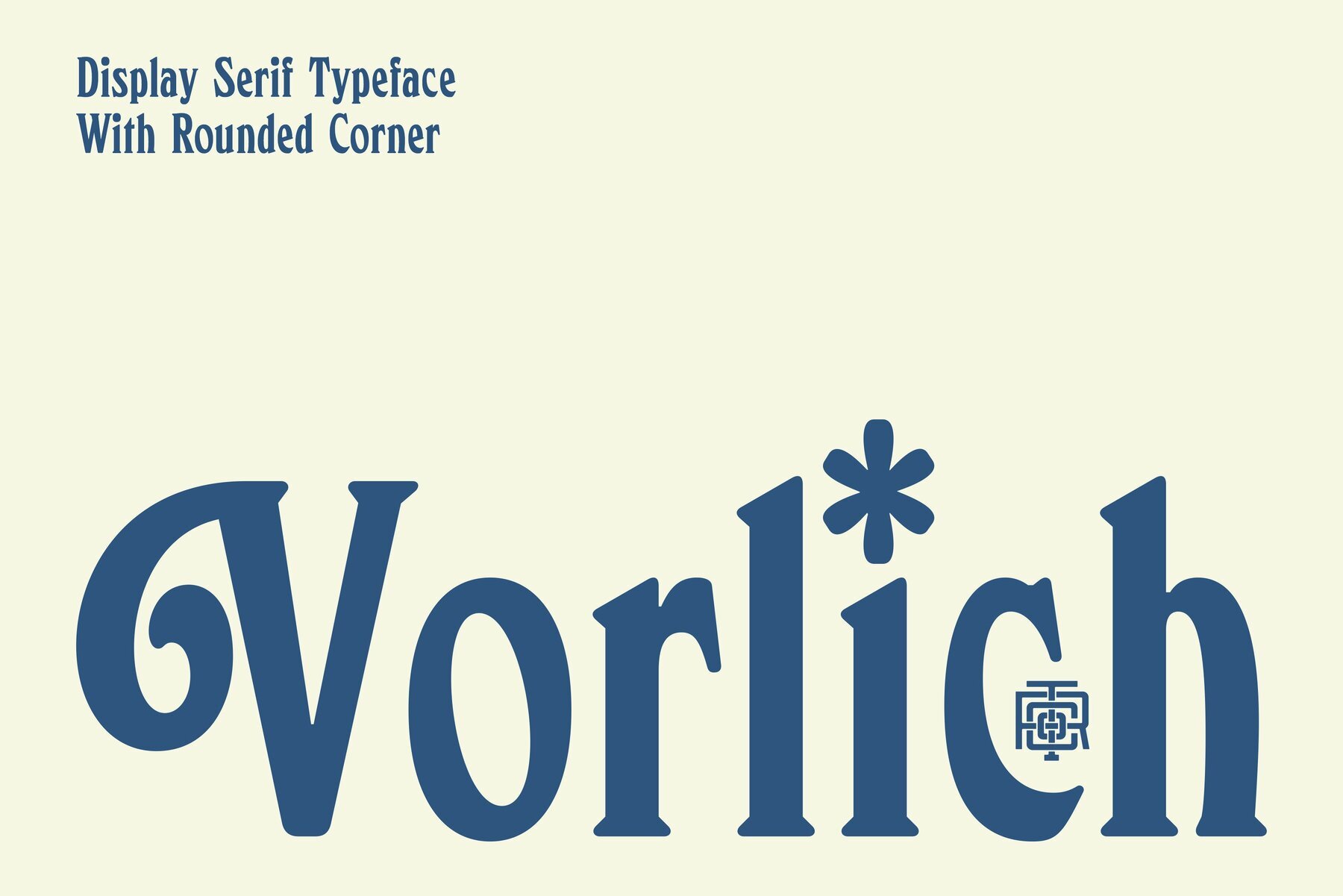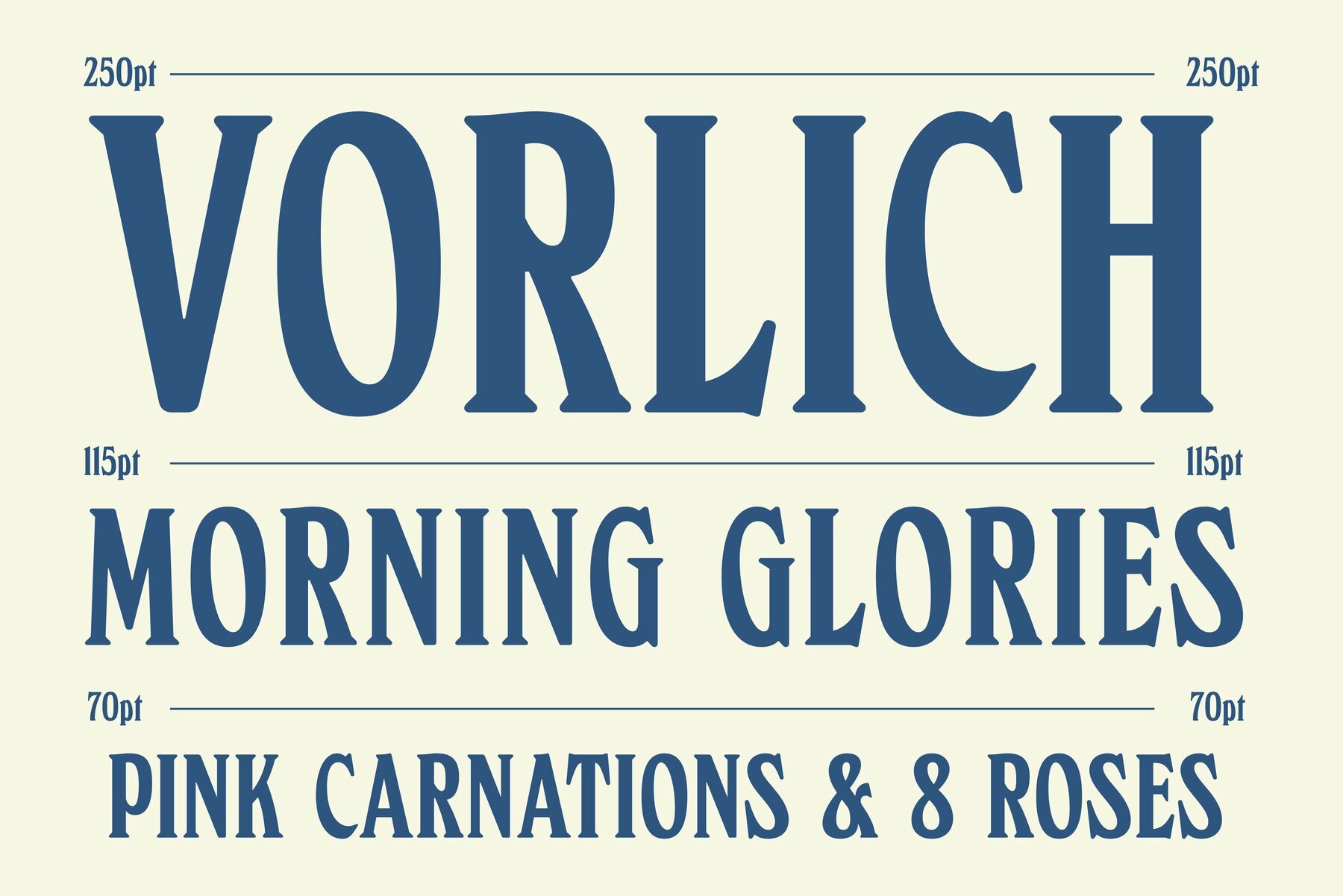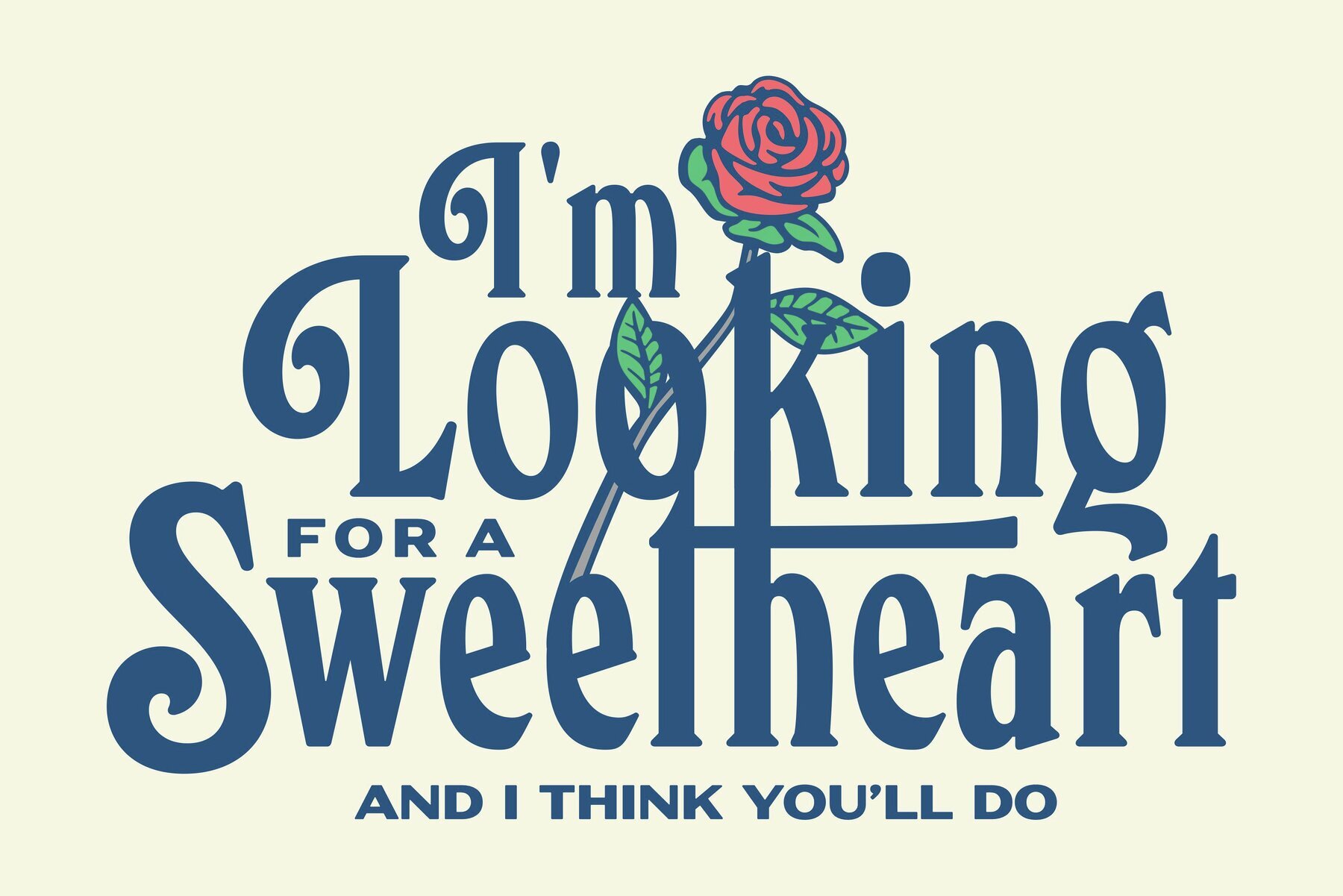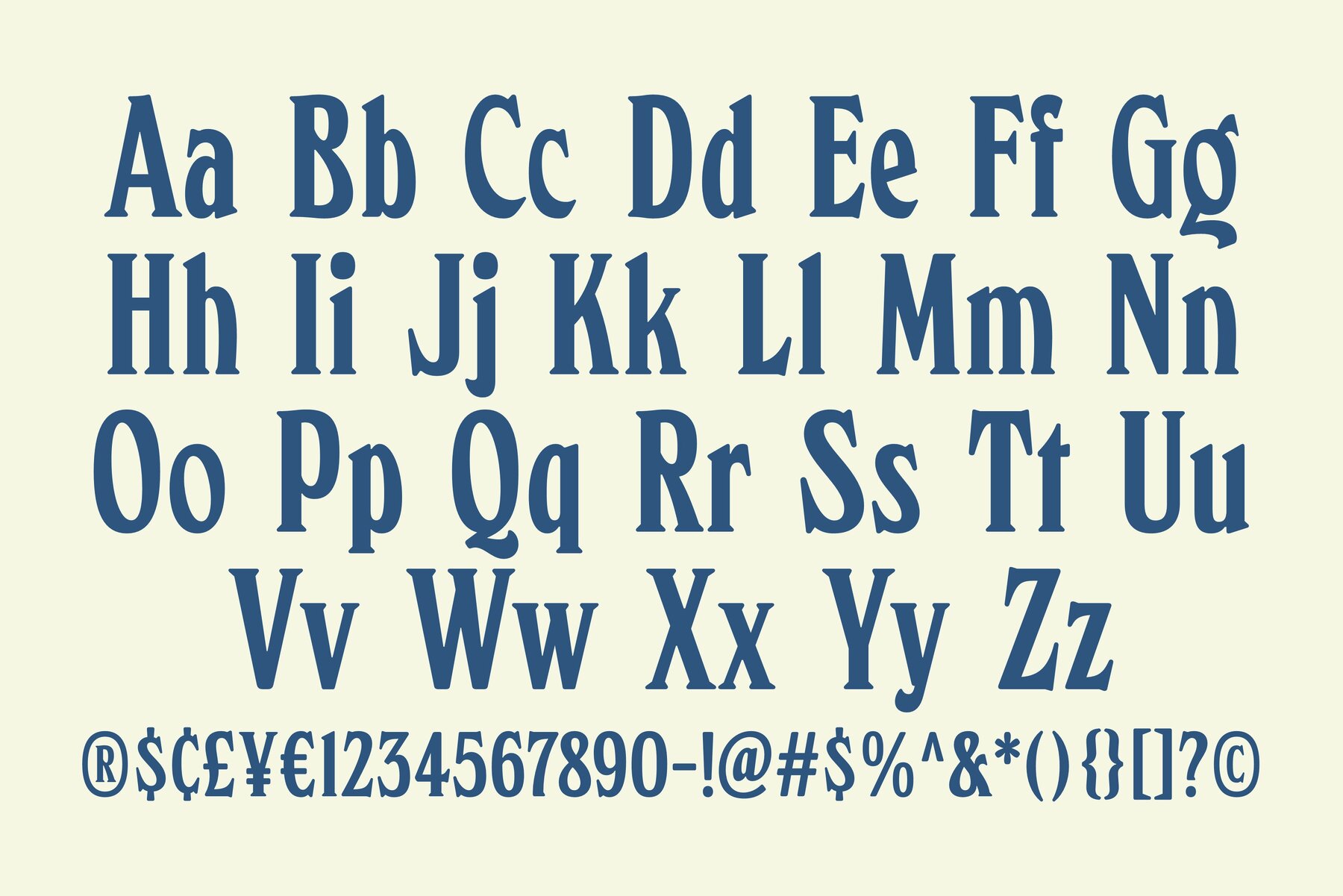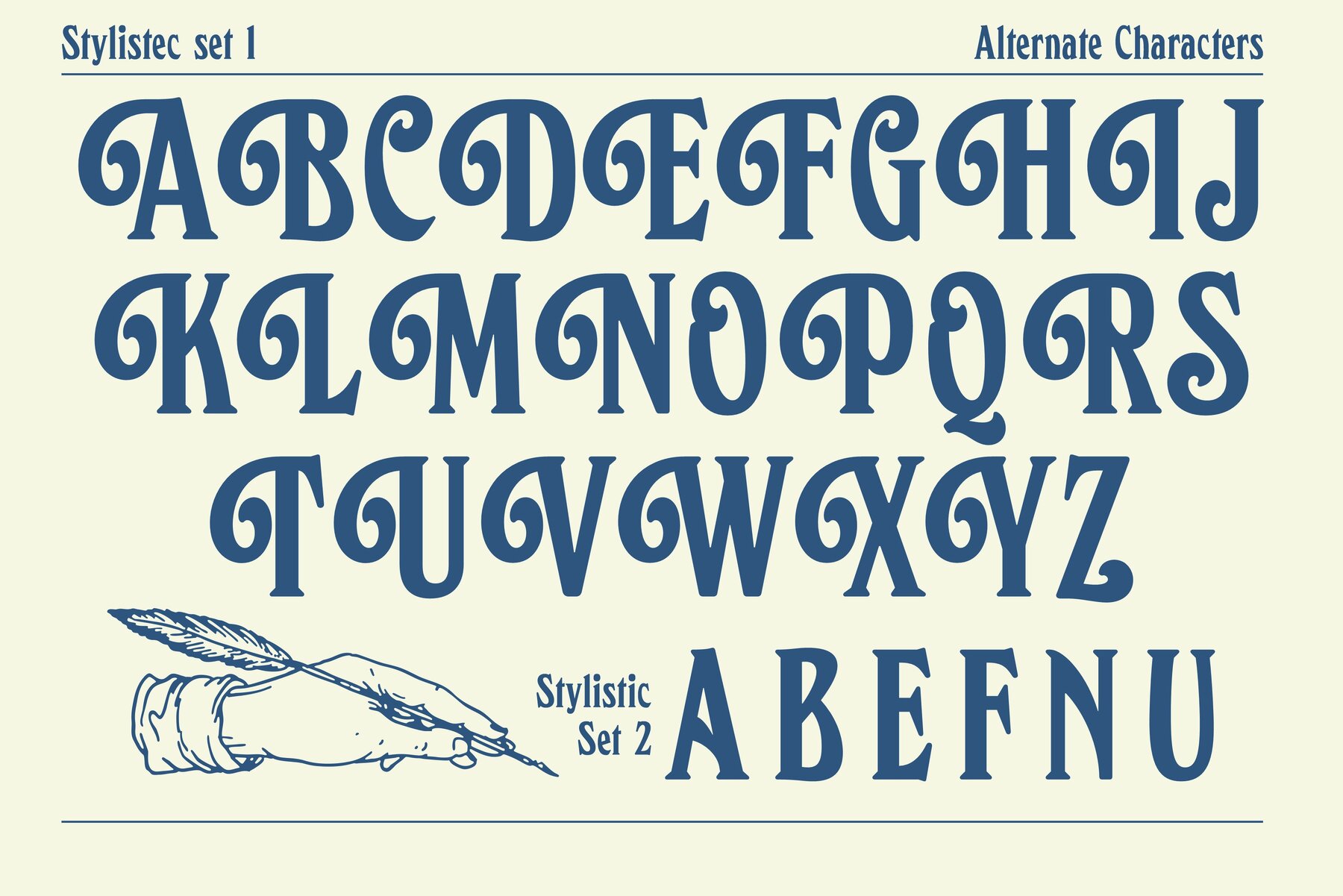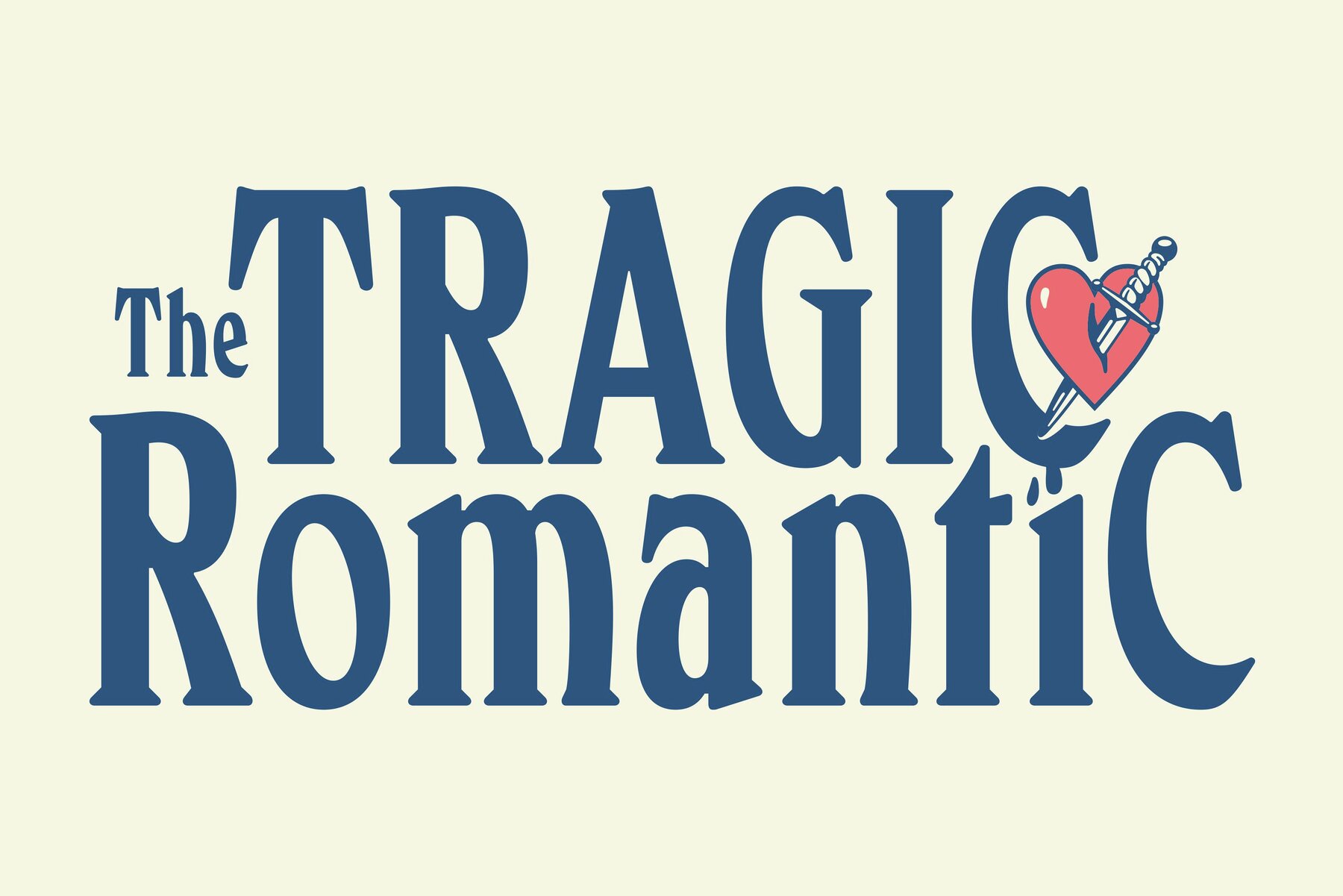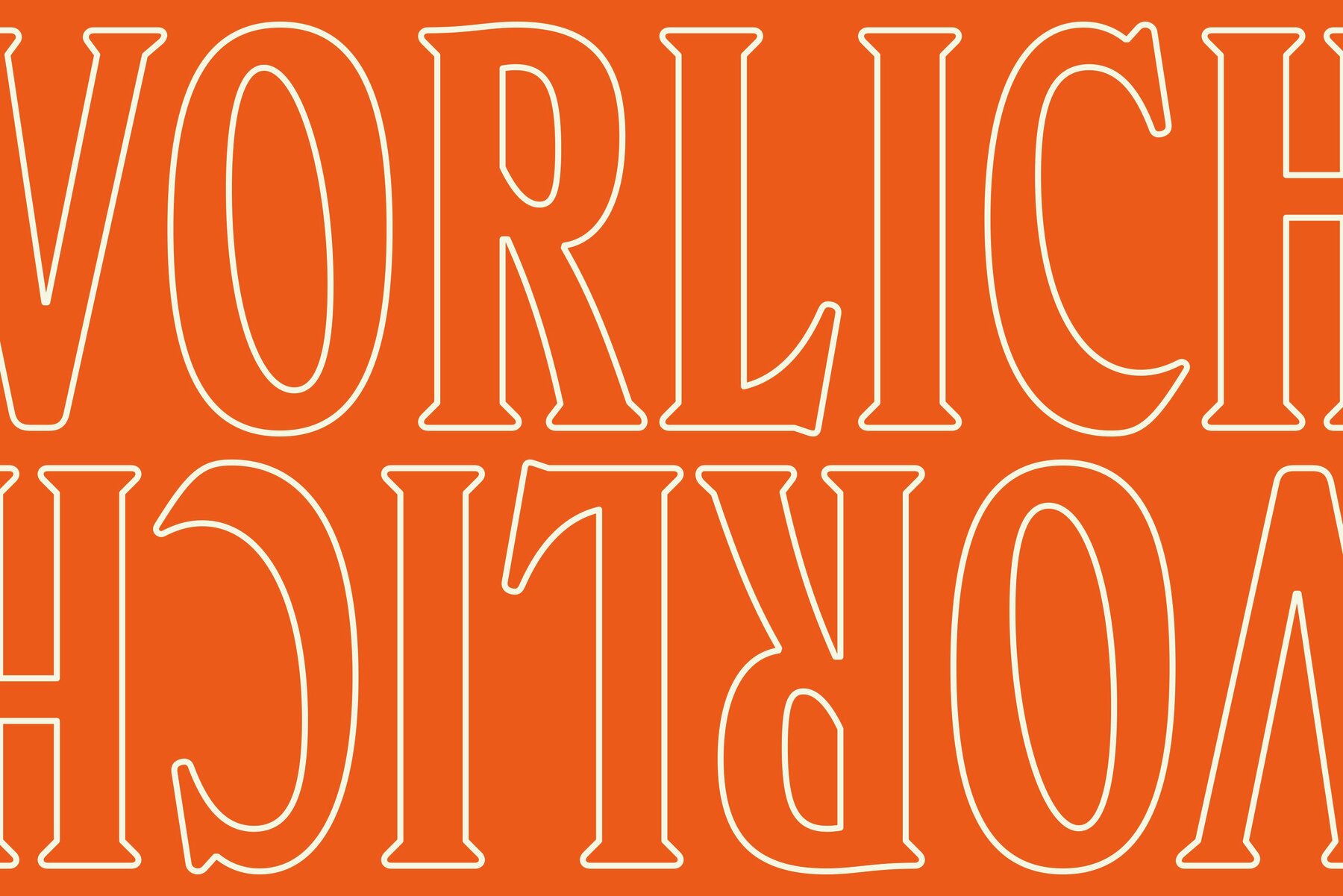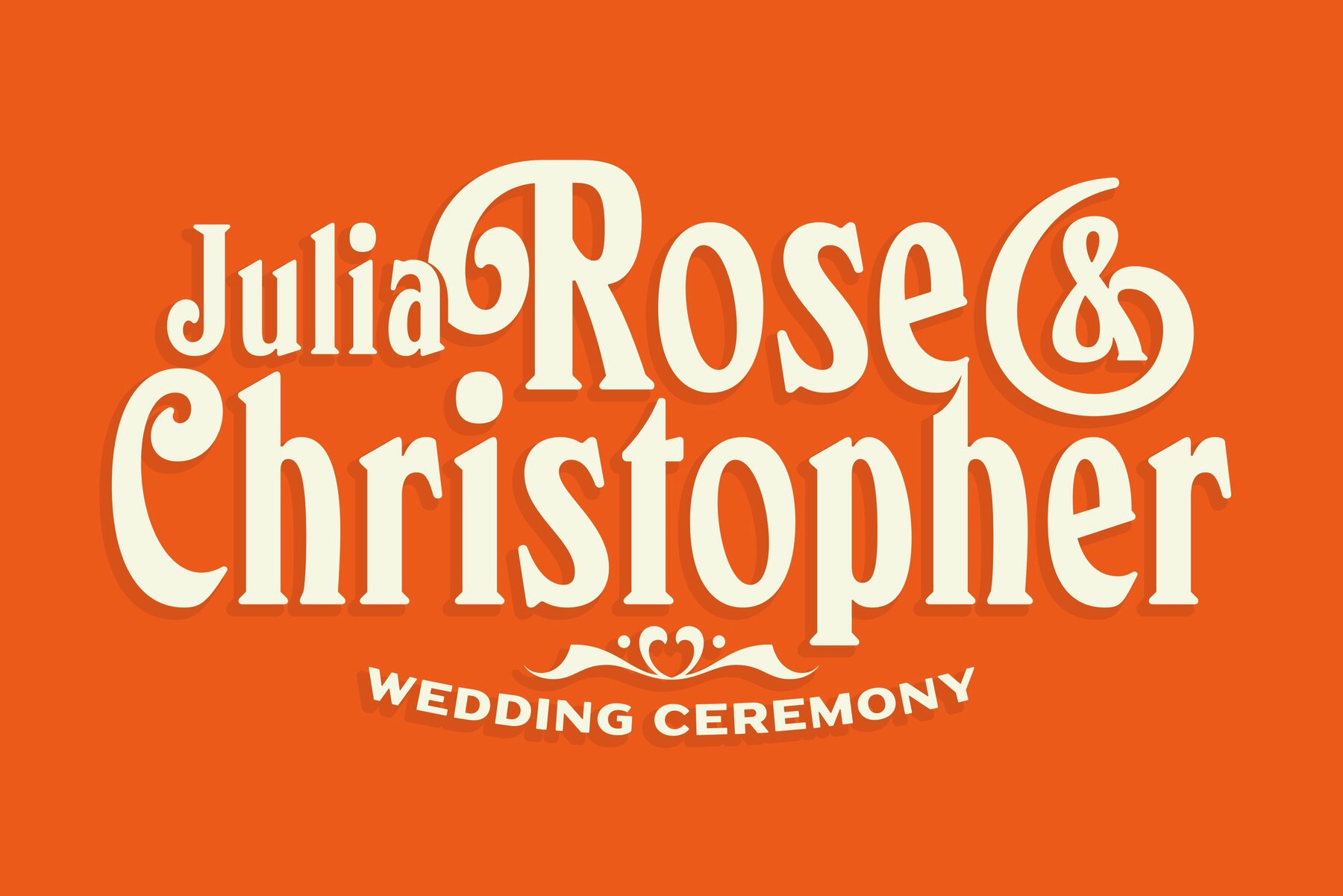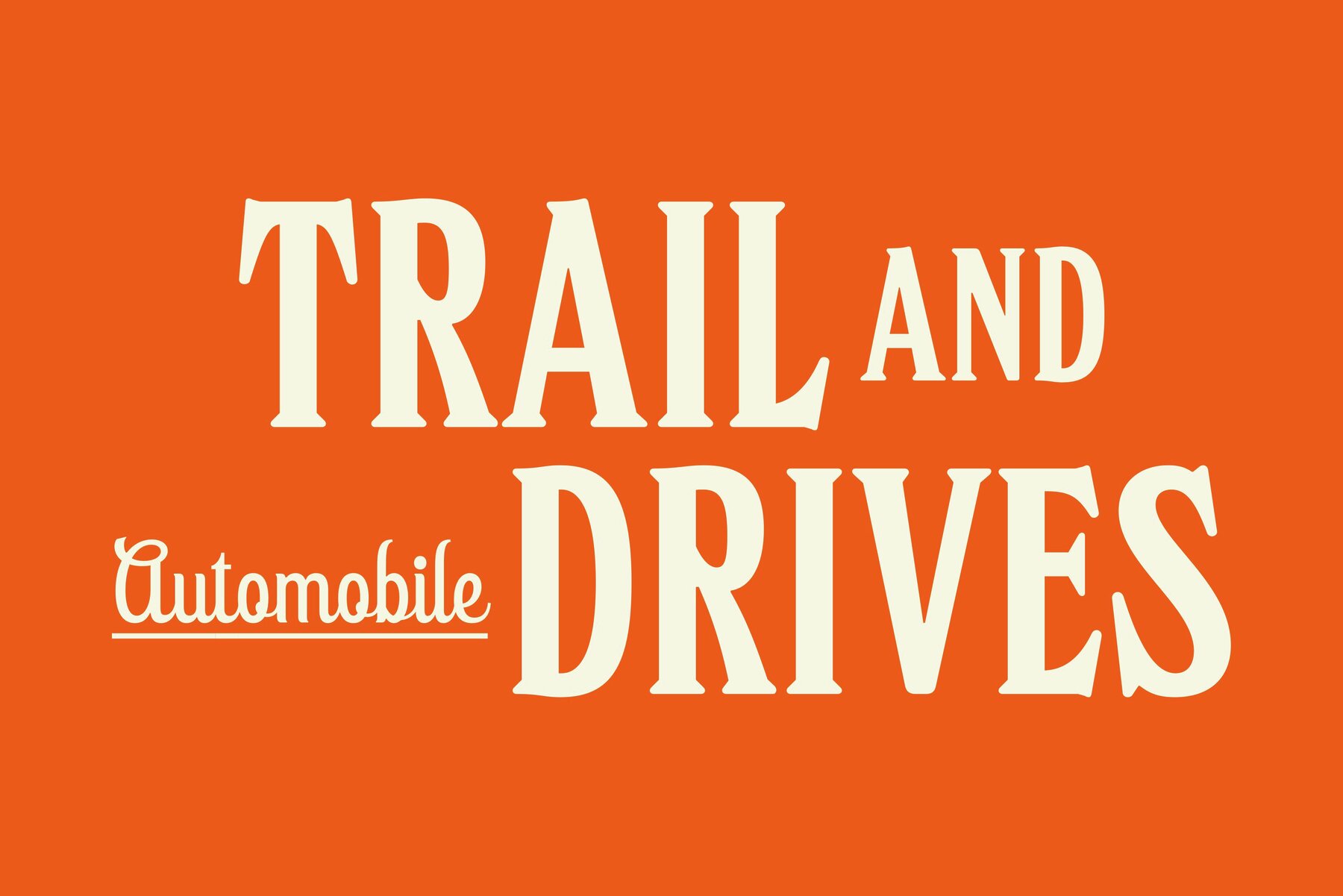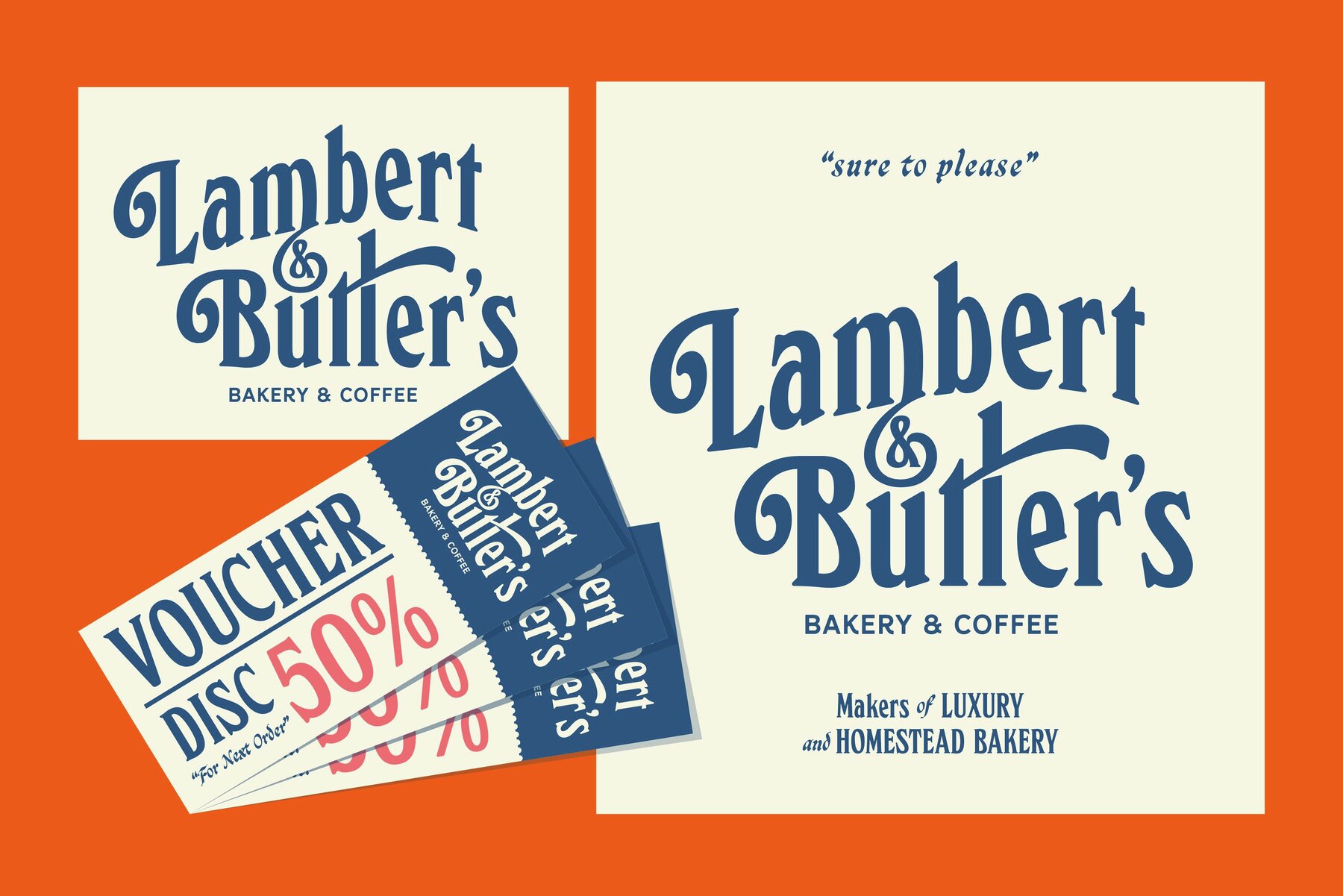
Vorlich Font
Vorlich is a classy, serif condensed display typeface characterized by its rounded corners. Inspired by vintage signs and logotypes used in advertising branding, this font brings a nostalgic yet modern twist to your design projects.
Vorlich is ideal for creating logotypes, merchandise, printed stickers, and other branding materials. Featuring approximately 375 glyphs, this typeface includes alternate characters, uppercase and lowercase letters, numerals, punctuation, ligatures, and supports multiple languages. It's a versatile choice for any graphic designer looking to add a touch of timeless elegance to their work.